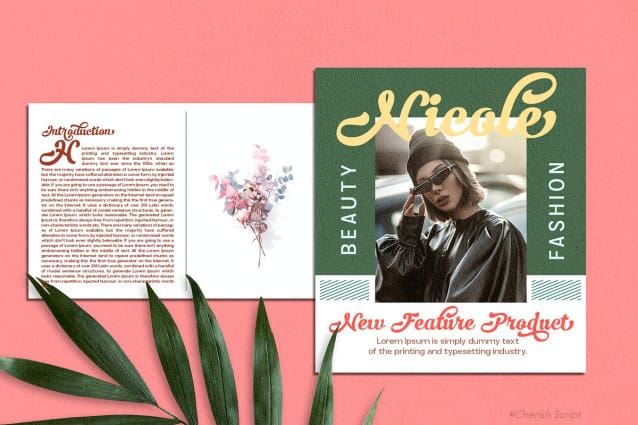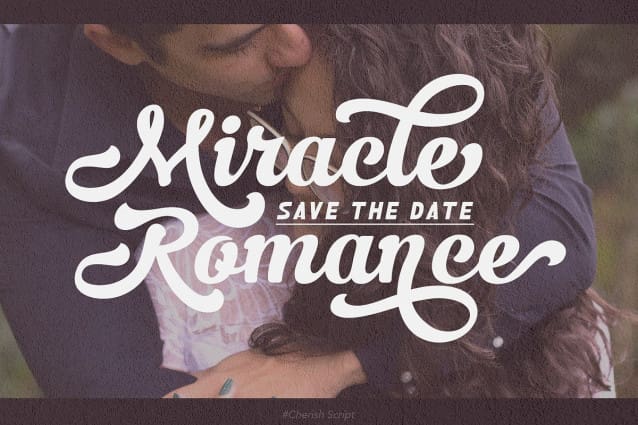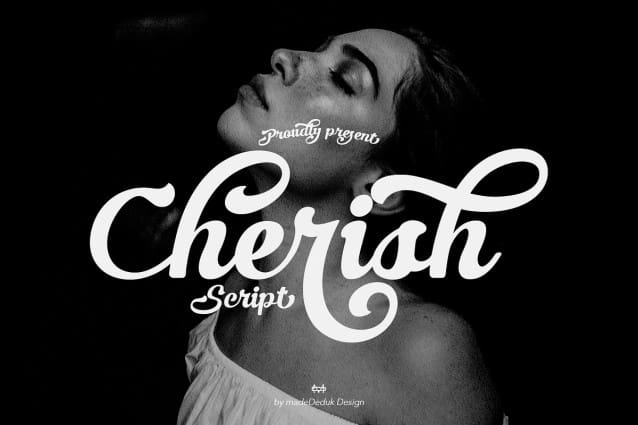
Cheris Script Font
Cheris Script Font is a script font comes with curly style with a lot alternative and ligature. This font perfect for poster design, book covers, merchandise, fashion brands, advertising, magazines, album covers, wedding invitation and more.